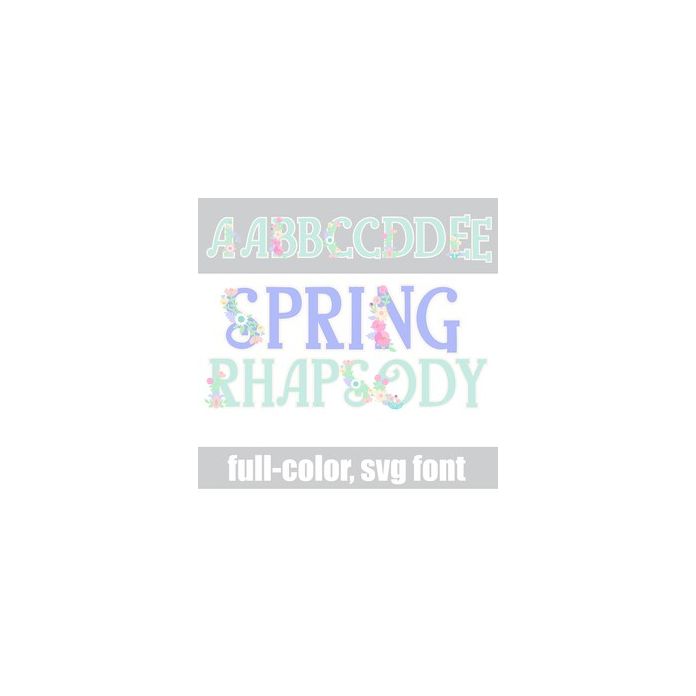
This full-color serif font features pretty florals on the uppercase. There is an alt case w/ additional colors you can access through your system or Silhouette's glyph map.